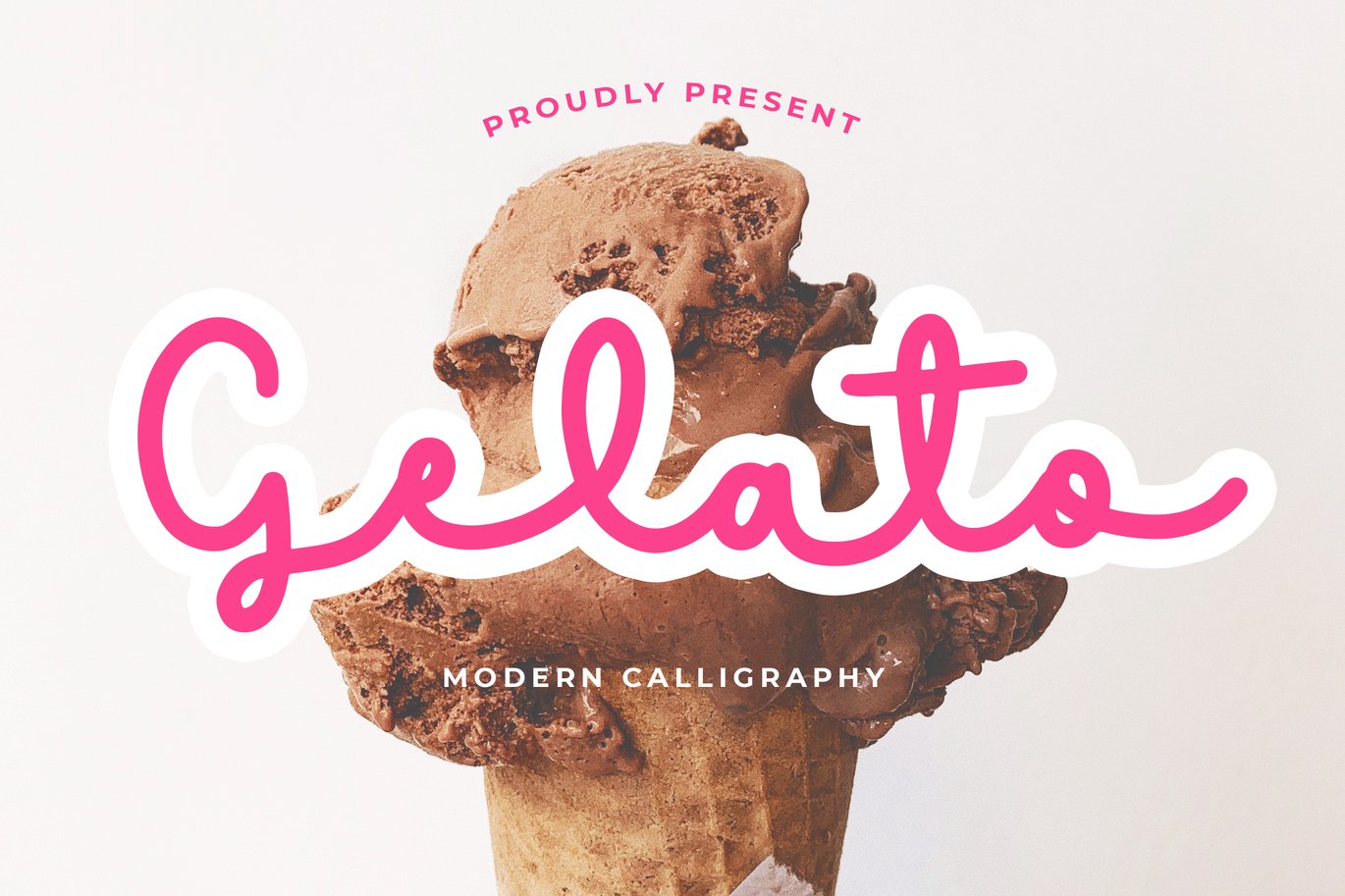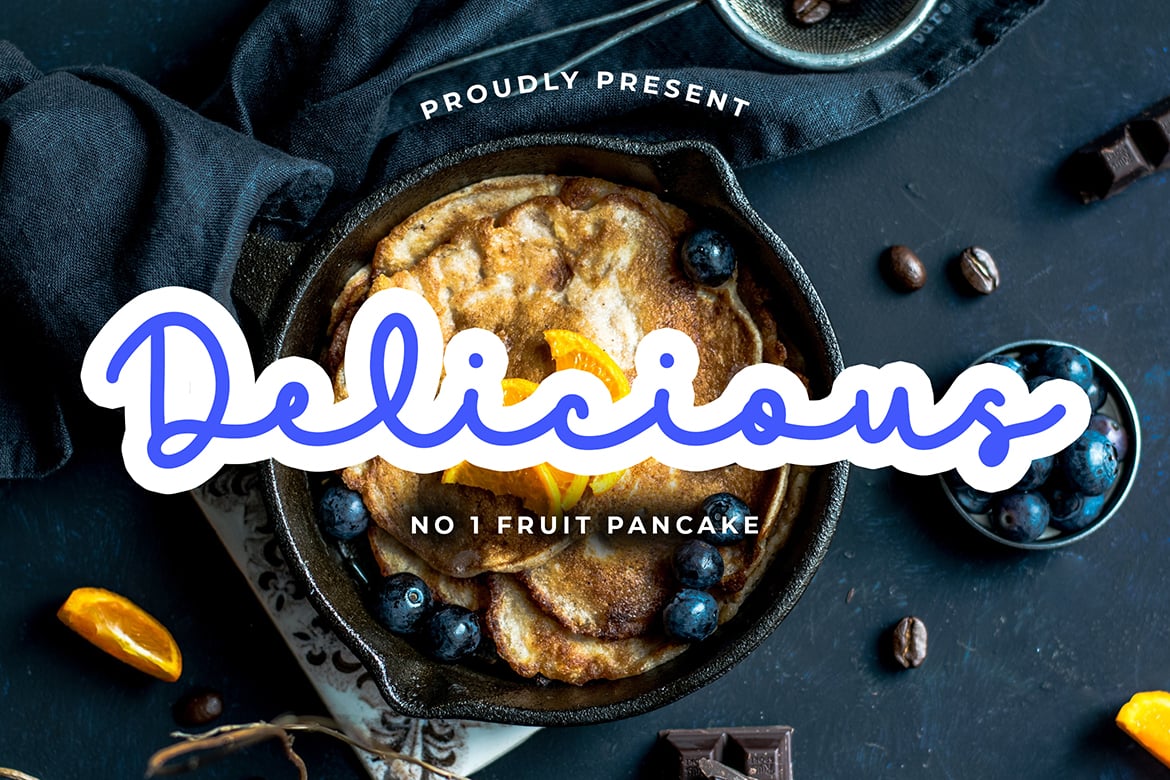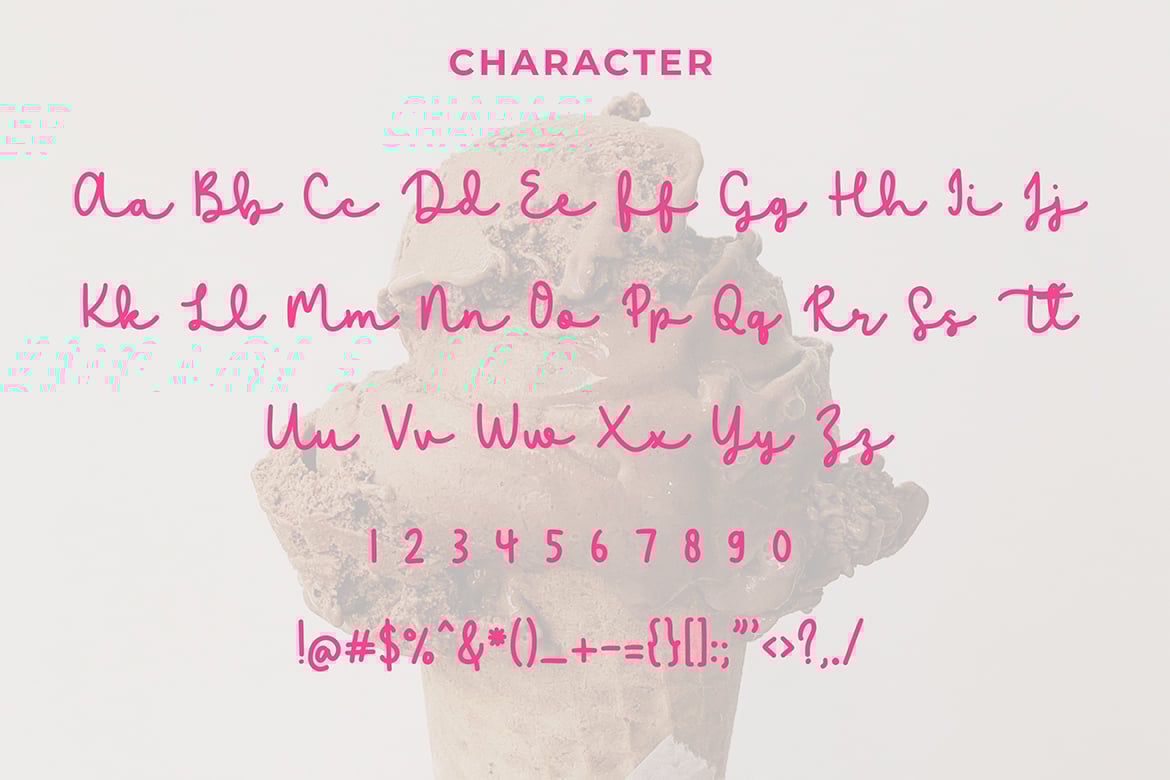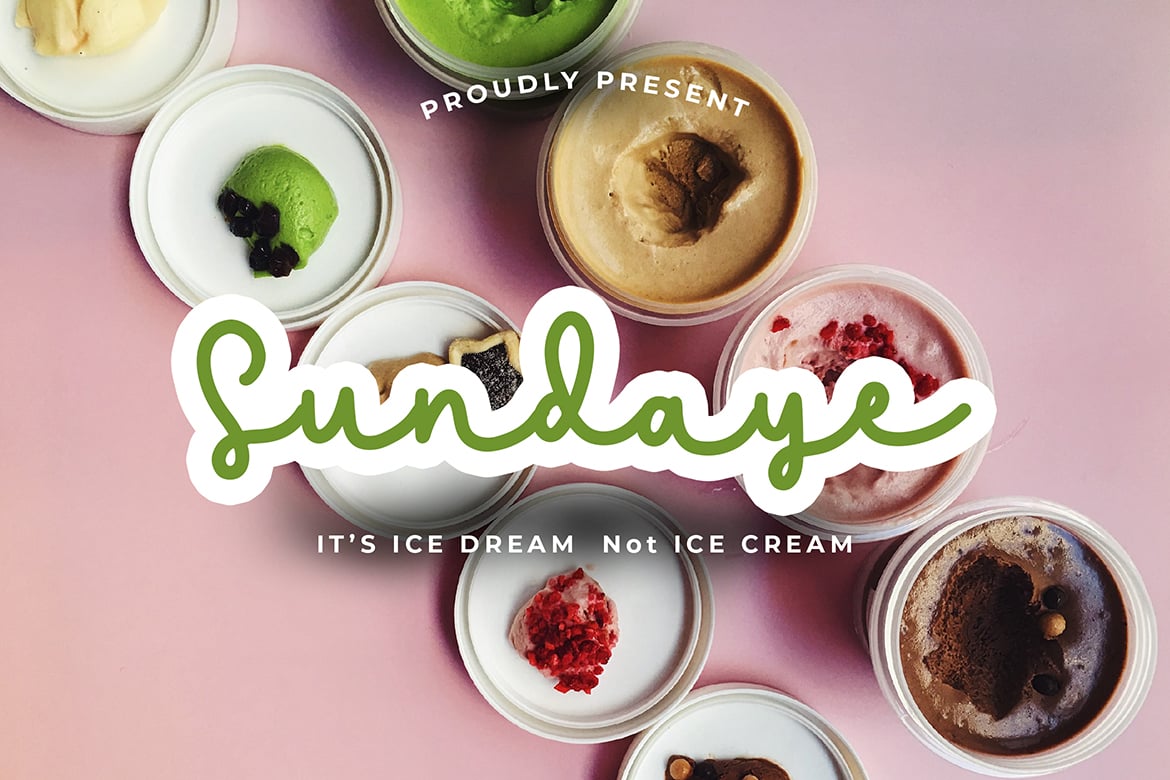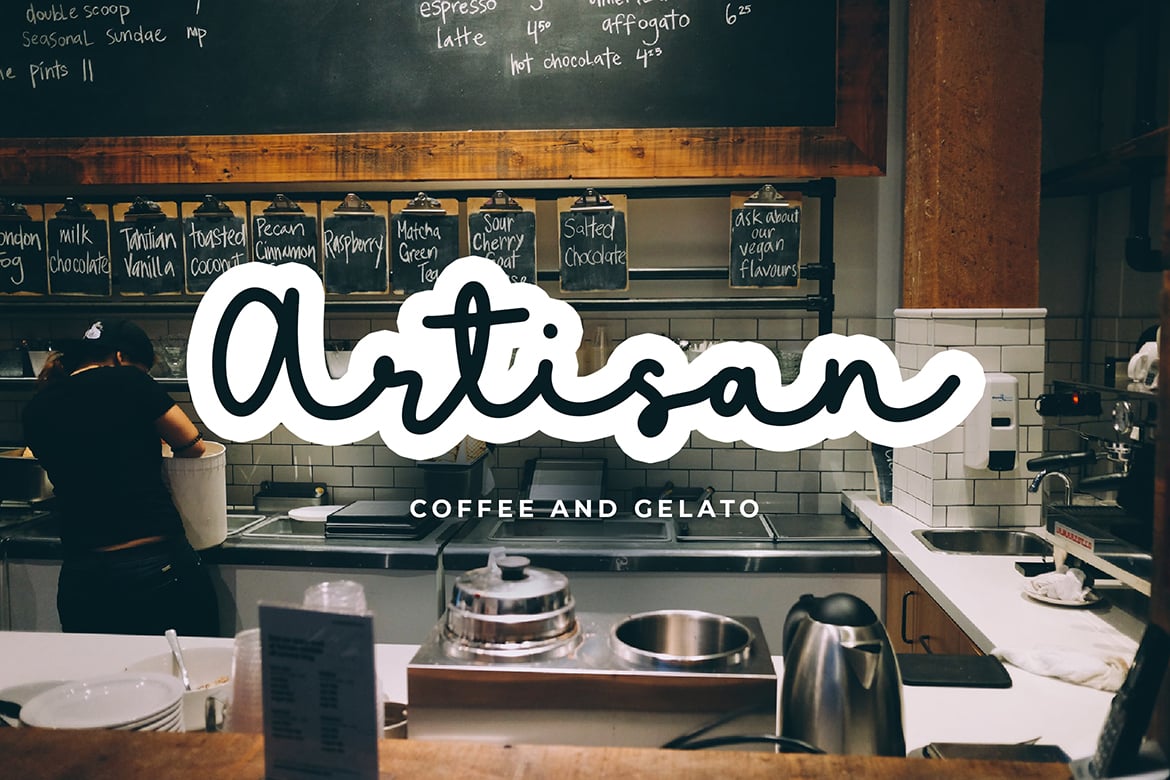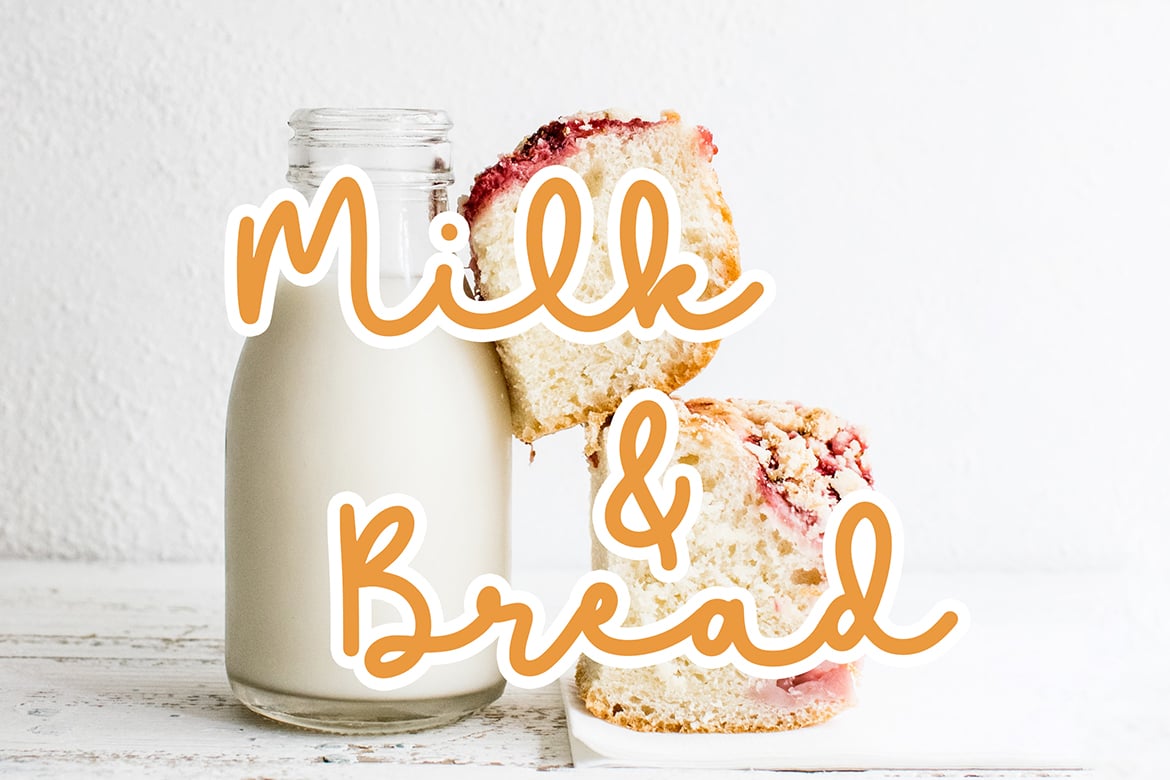
Gelato Modern Calligraphy Font
Gelato is modern calligraphy with monoline style. this font is perfect for branding projects, logo, tshirt designs, social media posts, advertisements, product packaging, product designs, label, watermark, invitation, stationery and any projects.